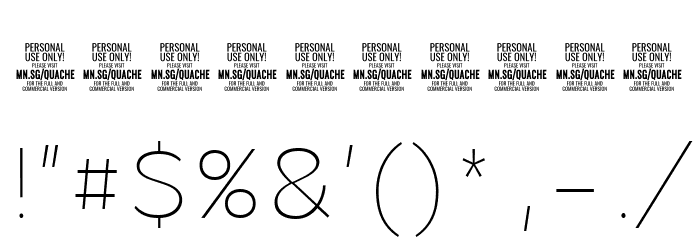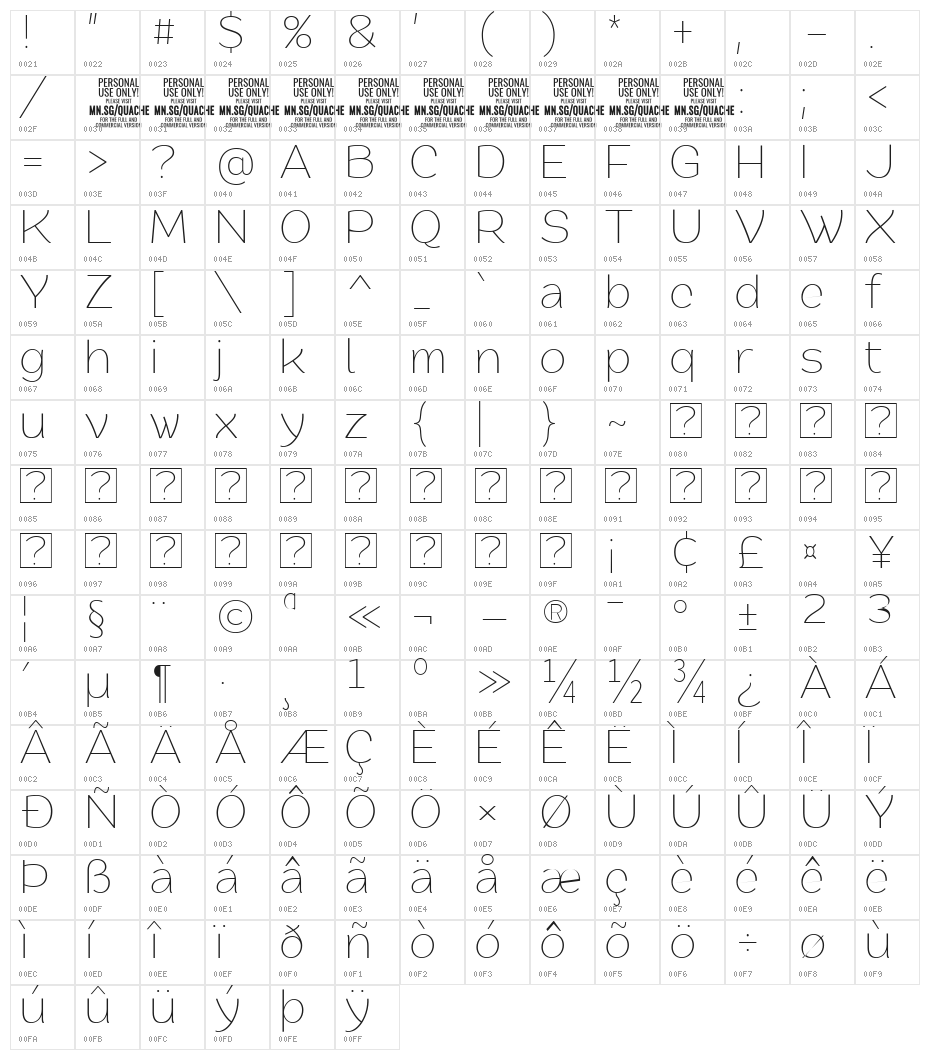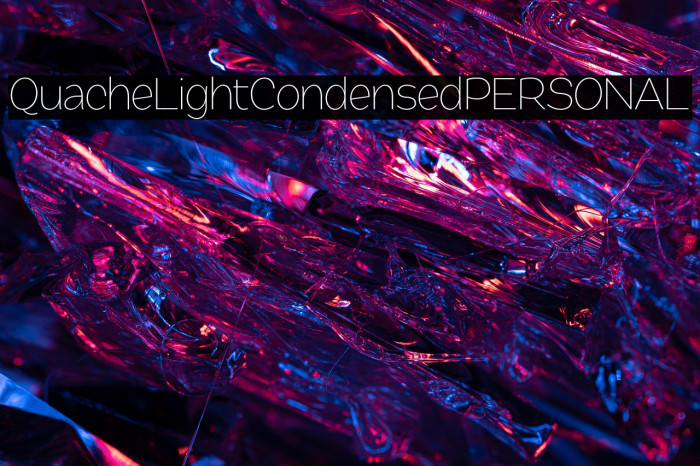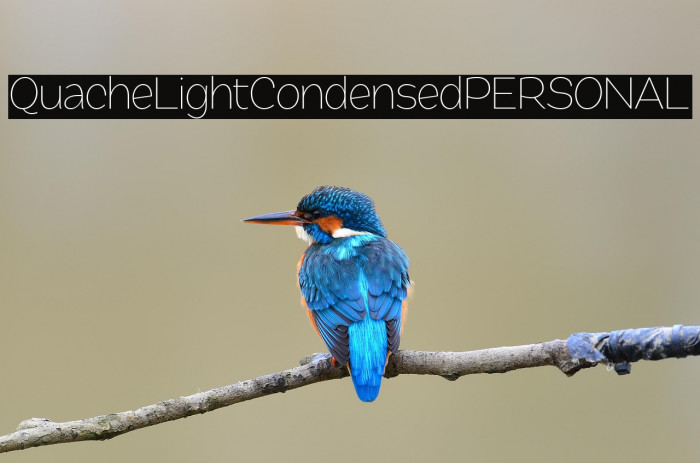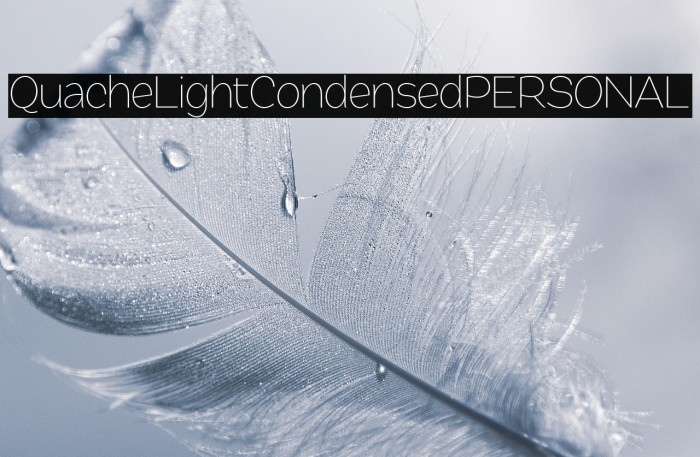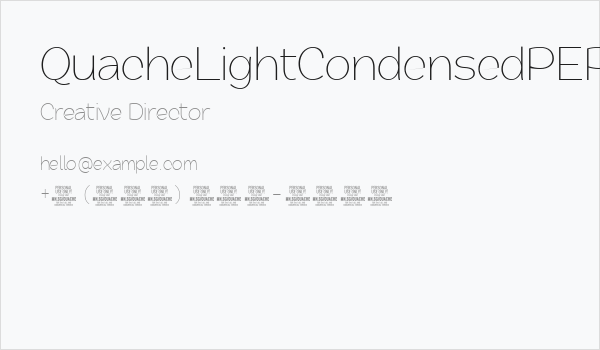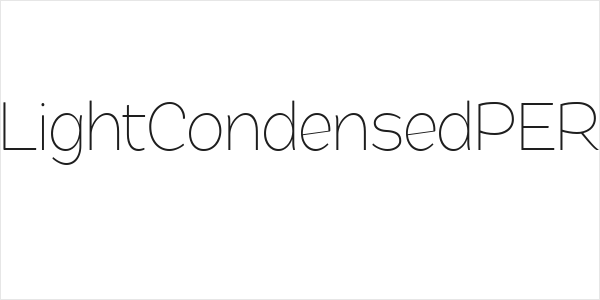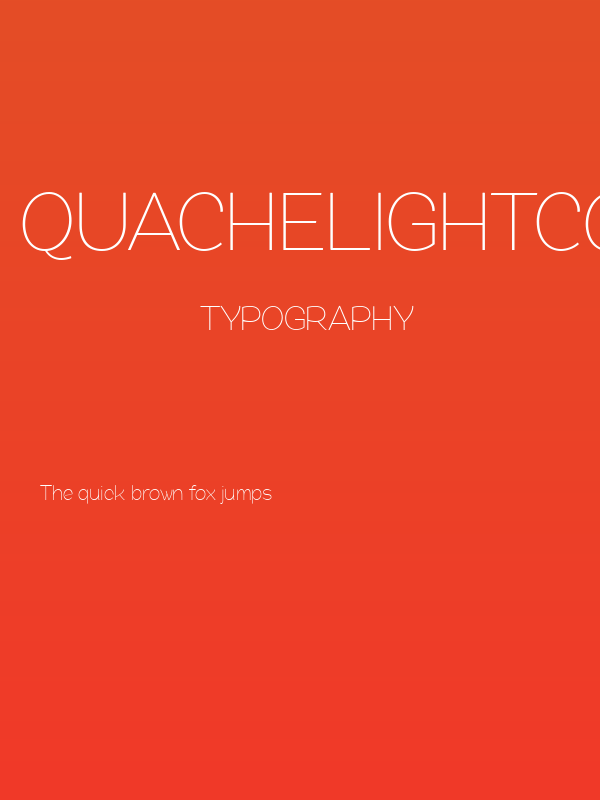
QuacheLightCondensedPERSONAL Font
QuacheLightCondensedPERSONAL Description
This font features a sleek and modern design with a light and airy feel. The characters are elegantly condensed, providing a sophisticated and minimalist aesthetic. The uppercase and lowercase letters are crafted with clean lines and a uniform stroke width, creating a harmonious and balanced appearance. The numerals and special characters maintain the same refined style, ensuring consistency across all text elements. This font is ideal for projects that require a contemporary and stylish look, offering both clarity and elegance.
| Proposed Projects | Ideal for branding, editorial design, web design, and minimalist posters. |